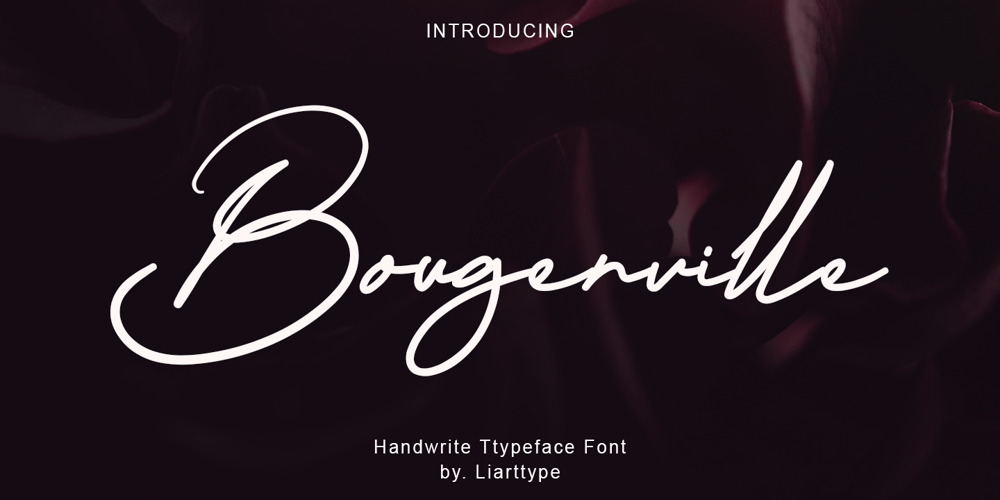
Bougenville Font Family was designed by Ali Sifak Muftari and published by Liartgraphic. Bougenville contains 1 styles and family package options. Meet our newest product, we call this product Bougenville font. Bougenville font are typeface fontWhit a uniqe touch and assertive. Bougenville font is very nice to use on:fashion magazine,logos ,and photography, landing page, fliyer,What’s includes – Multilingual support- alternate- ligatureAli Sifak Muftari